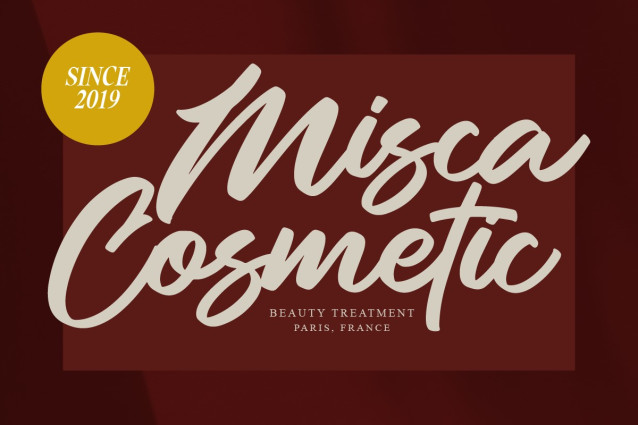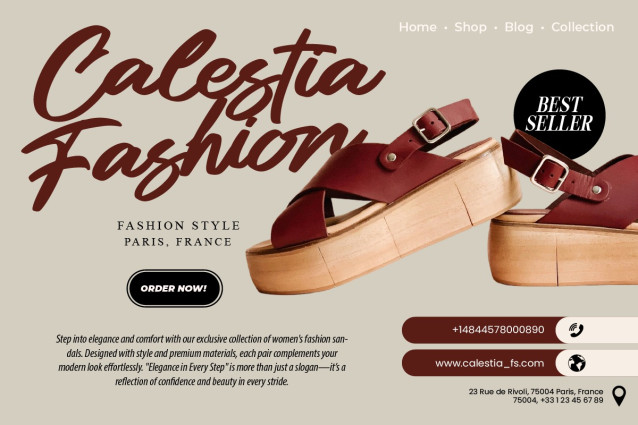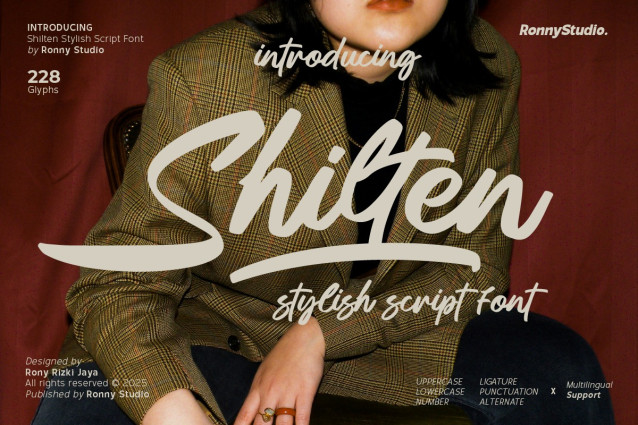
Shilten Script Font
Shilten Script Font is a contemporary script font that blends elegance and modernity, making it perfect for a variety of creative projects. With smooth curves and a natural flow, Shilten elevates the visual appeal of your designs, whether for invitations, logos, social media graphics, or branding materials.
Designed to balance beauty with functionality, Shilten offers versatility and exceptional readability. The font supports multiple languages, ensuring your message can reach a global audience.